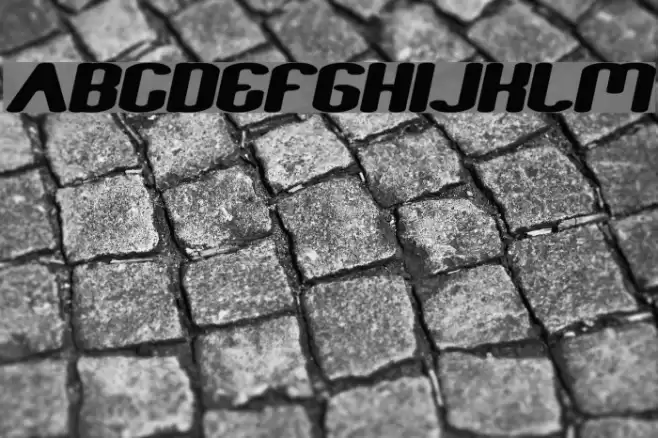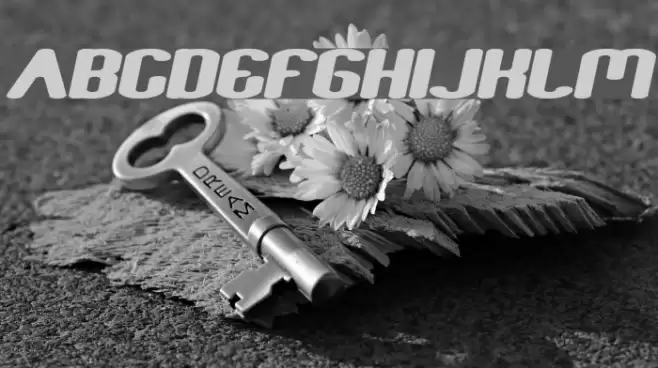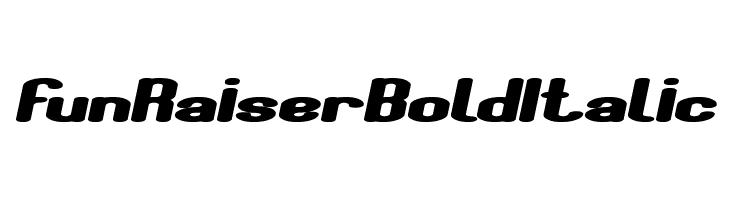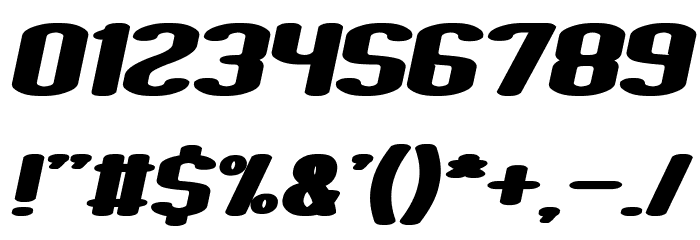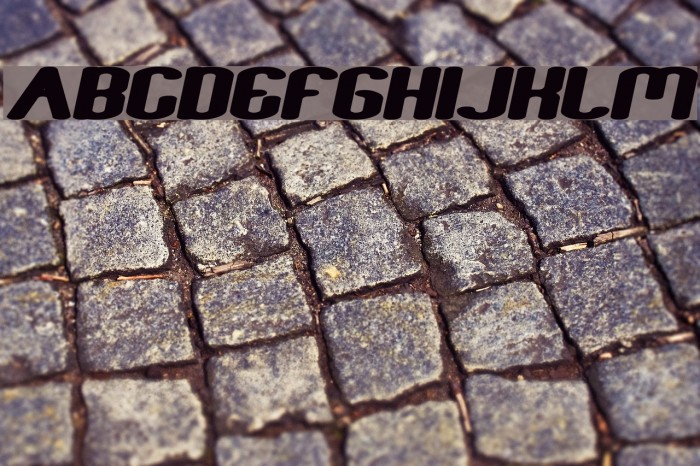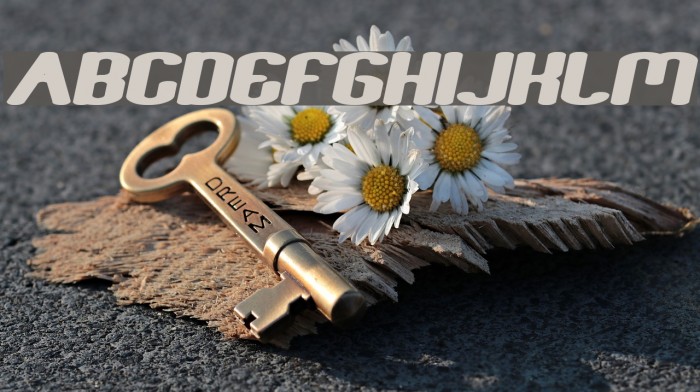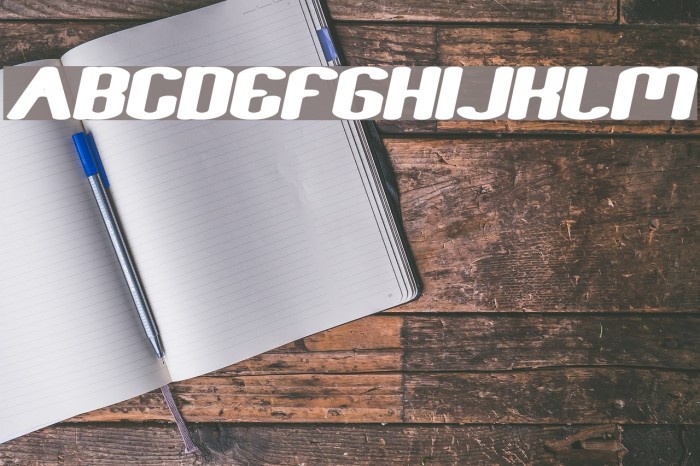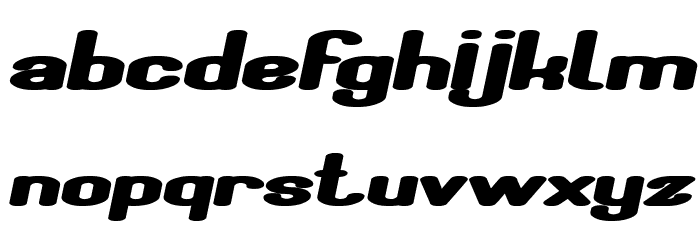
Fun Raiser Bold Italic Font
Fun Raiser Bold Italic Description
This font features a bold and playful style with a distinct italic slant, giving it a dynamic and energetic appearance. The characters are rounded and have a smooth flow, which adds to the overall friendly and approachable feel. The bold weight ensures strong visibility, making it suitable for attention-grabbing designs. The italic angle adds a sense of movement and creativity, making it ideal for projects that require a lively and informal touch. The font maintains consistent stroke thickness, providing a uniform look across all characters. Its unique style makes it stand out, perfect for creative and fun applications.
A bold, playful, and italic font with rounded characters and a dynamic style from Uncategorized fonts.
- Proposed Projects: Ideal for posters, event flyers, children's books, and branding materials that require a fun and energetic vibe.
- Overall Style: Playful and Energetic